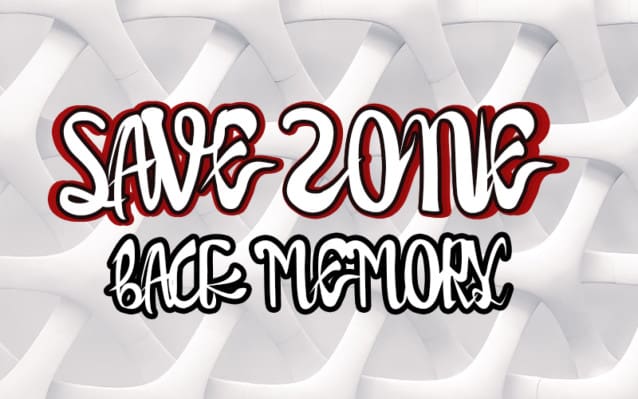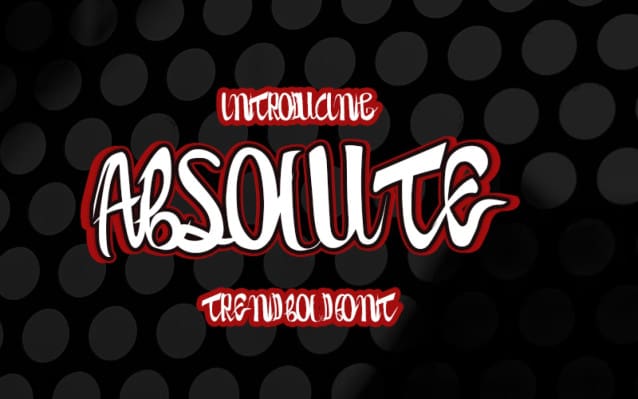
Absolute Bold Font
Absolute Bold Font is a stylish and modern handwritten, suitable for a wide spectrum of applications. From greeting cards to headlines, branding and packaging, this font will guarantee a happiness touch to each of your creations!